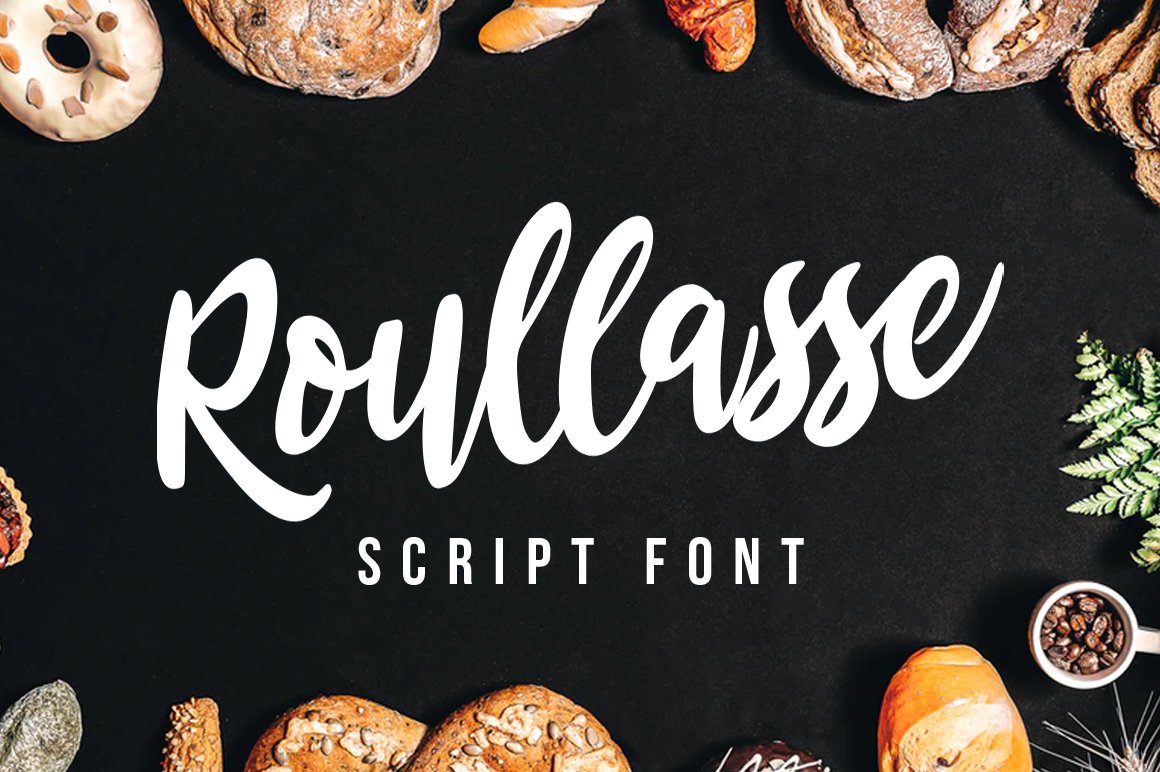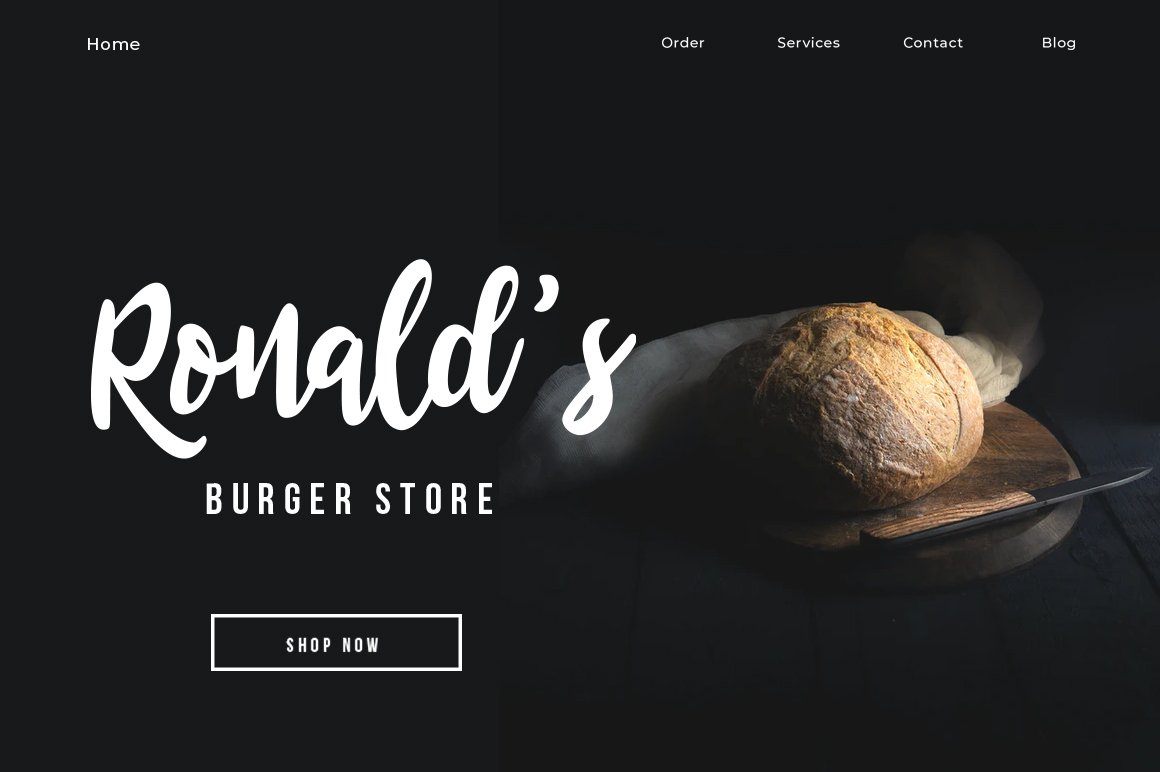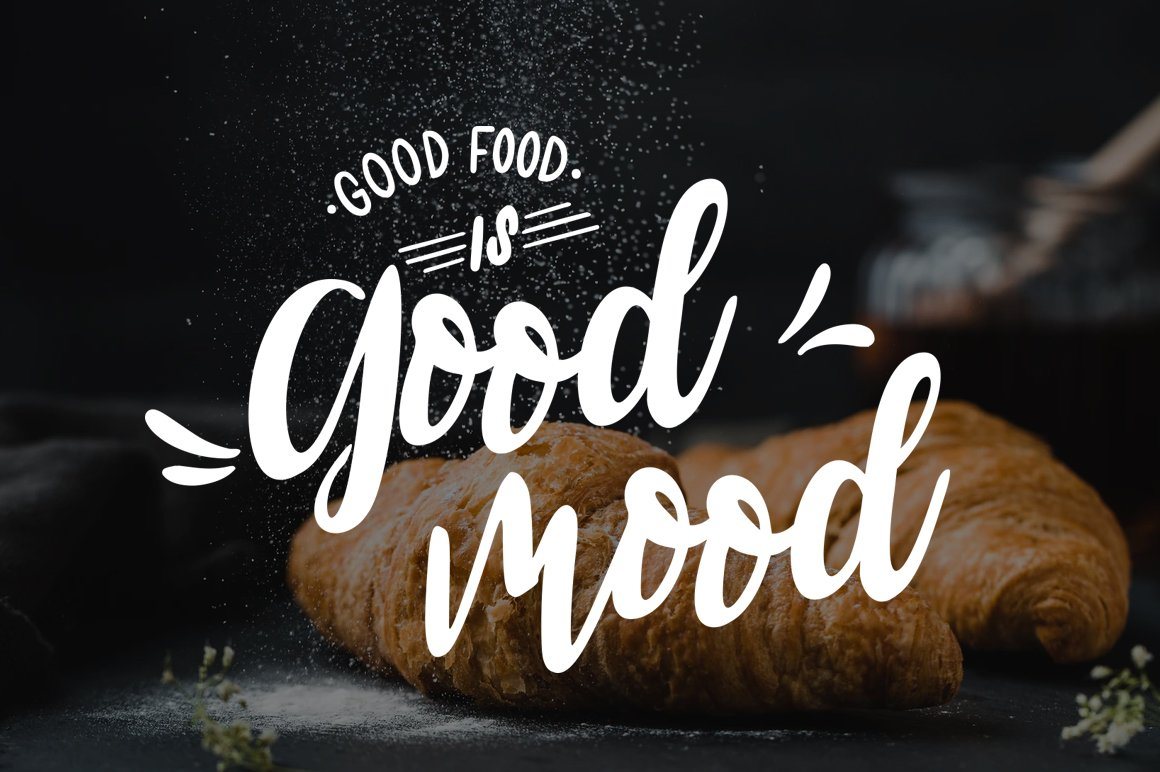
About Roullasse – Handwritten font
Roullasse is a sweet and relaxed handwritten font. Fall in love with its incredibly versatile style and use it to create spectacular designs! you WIll Get : Zip file containing: either a OTF and TTF files Font Features : Web font file (.WOFF) Uppercase + Lowercase Letters Numbers + Punctuation Ligature Feature OpenType features Multilingual support Compatible with Adobe Illustrator, Adobe Photoshop, Adobe Indesign, Word, Corel draw, inkscape Silhouette Studio, Cricut Design Space, Scan N Cut, and other cutting and design programs Any questions? feel free to send us a message. Have a great day !